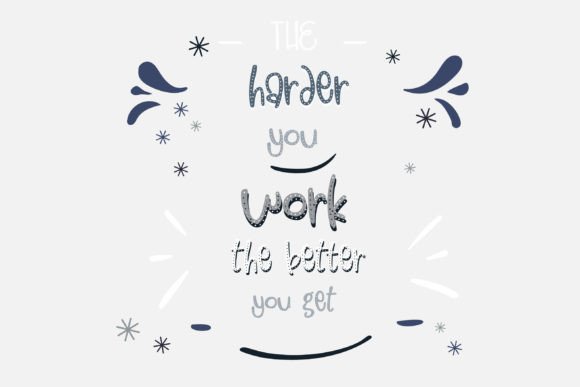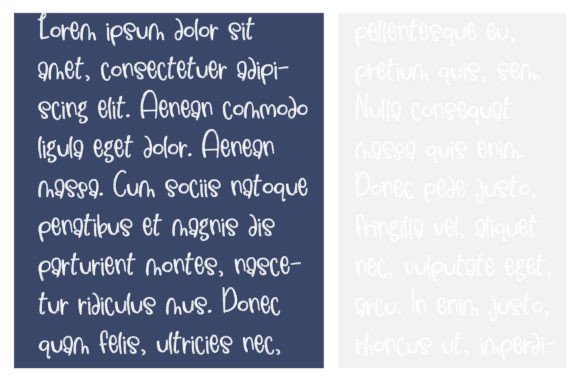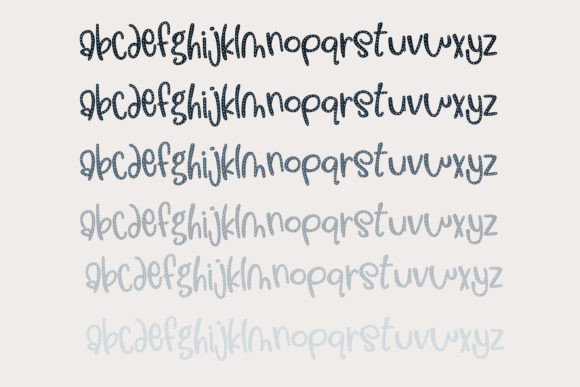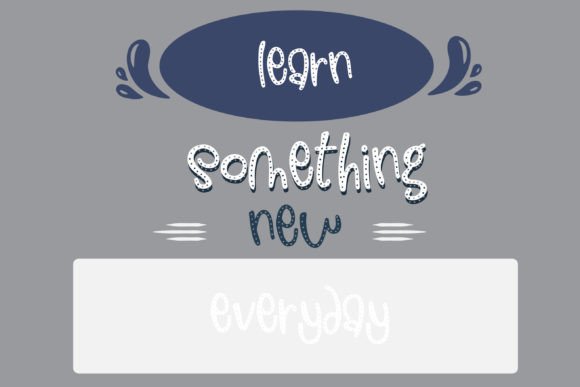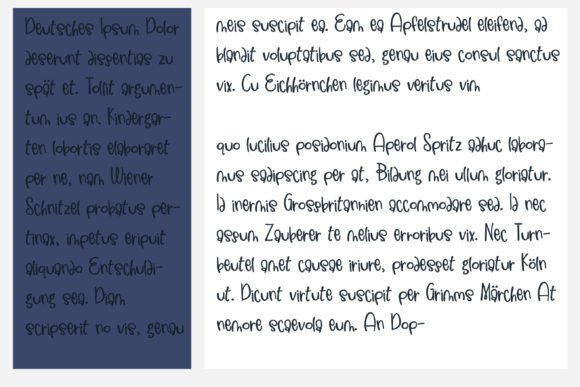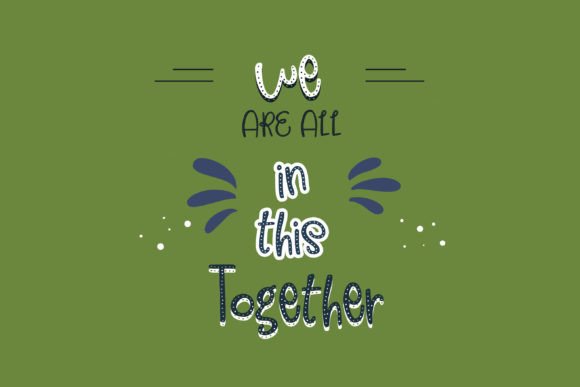
Introduction to Snogberry Merry Font
As a designer, have you ever been stuck in a creative rut, searching for the perfect font to bring your project to life? I know I have. One moment, I was staring at a blank canvas, and the next, I was scrolling through font libraries, hoping to stumble upon the perfect match. And then, it happened – I found the Snogberry Merry Font, and my design world was forever changed.
This hand-crafted sans serif font is a game-changer for any creative project, from invitations to marketing campaigns. With its unique marquee-like dots adorning each character, Snogberry Merry Font adds a playful and festive vibe that’s sure to grab attention. Whether you’re working on a high-quality design resource or a simple free download, this font is a valuable addition to any designer’s toolkit.
With its transparent background and high-quality design, Snogberry Merry Font is the perfect way to add a dash of merry charm to your projects. So why settle for a generic font when you can have a one-of-a-kind, hand-crafted font that’s sure to make your text stand out?
Key Features of Snogberry Merry Font
- Unique and playful design, perfect for creative projects and festive occasions.
Honest Review: Snogberry Merry Font
I recently stumbled upon the Snogberry Merry Font and was excited to give it a try. As a designer, I’m always on the lookout for high-quality design resources that can elevate my creative projects. In this review, I’ll share my honest thoughts on this font.
- Unique and playful style: The Snogberry Merry Font has a charming and whimsical feel that’s perfect for festive or seasonal designs.
- Transparent background: The transparent background option makes it easy to layer the font with other design elements.
- Limited character set: The font only includes a limited character set, which may not be suitable for all design projects.
- No bold or italic weights: The font only comes in a single weight, which may not be ideal for designs that require bold or italic text.
Overall, I’m impressed with the Snogberry Merry Font and would recommend it for creative projects that require a playful and festive feel. While it has some limitations, the font is a great design resource that’s definitely worth exploring.
To get the most out of the Snogberry Merry Font, use it in conjunction with other high-quality design resources. Experiment with different font sizes, colors, and styles to create a unique and eye-catching design. You can also use the font in combination with other creative assets, such as images and illustrations, to create a visually appealing design.
The Snogberry Merry Font is a versatile font that can be used in a variety of creative projects, including graphic design, digital art, and even web design. It’s a great font to use for titles, headings, and other text elements that require a unique and festive touch.